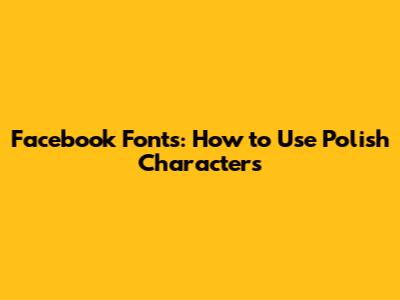
- Enable Polish Keyboard Layout: First, you need to enable the Polish keyboard layout on your computer or smartphone. On Windows, go to Settings > Time & Language > Language, and add the Polish language pack. On macOS, go to System Preferences > Keyboard > Input Sources, and add Polish. On Android and iOS, you can usually find keyboard settings in the device settings under Language & Input.
- Switch Between Keyboard Layouts: Once enabled, you can switch between your default keyboard and the Polish keyboard. On Windows, use the Windows key + Spacebar shortcut. On macOS, use Command + Spacebar. On mobile devices, you can usually switch keyboards by tapping the globe icon on the keyboard.
- Typing Polish Characters: Now, you can start typing Polish characters. The specific keys for these characters will depend on the keyboard layout you've chosen. Common layouts include Polish (Programmers) and Polish (214). Refer to a keyboard layout chart to find the correct keys for 'ą', 'ć', 'ę', 'ł', 'ń', 'ó', 'ś', 'ź', and 'ż'.
- Using Character Map (if needed): If you're having trouble finding the characters on your keyboard, you can use the Character Map on Windows or the Character Viewer on macOS. These tools allow you to find and copy special characters.
- Copy-Pasting from Text Editors: If you're writing your text in a separate text editor, make sure the encoding is set to UTF-8. This ensures that the Polish characters are preserved when you copy and paste the text into Facebook.
- Test Your Posts: After posting, double-check to ensure that all Polish characters are displayed correctly. If you notice any issues, edit the post and try retyping the characters or adjusting the encoding.
- Characters Displaying as Boxes or Question Marks: This usually indicates a font or encoding issue. Ensure your browser and device support UTF-8 encoding. Try changing the font in your browser settings or updating your browser to the latest version. If you're using the Facebook app, make sure it's updated.
- Inconsistent Font Display: Sometimes, Facebook might display different fonts depending on the device or browser. Unfortunately, there's not much you can do about this, as Facebook controls the font rendering. However, choosing a widely supported font can minimize these inconsistencies.
- Copy-Pasted Text Issues: When copy-pasting text, the encoding might not be preserved. Try typing the text directly into Facebook or using a text editor to convert the encoding to UTF-8 before pasting.
- Mobile App Problems: The Facebook mobile app can sometimes have issues with displaying Polish characters correctly. Ensure the app is updated and try clearing the cache. If the problem persists, try using the mobile browser version of Facebook.
- Keyboard Layout Issues: Make sure you've correctly enabled and switched to the Polish keyboard layout. Double-check the keyboard layout chart to ensure you're using the correct keys for Polish characters.
- Font Size and Readability: Sometimes, the font size might be too small or the font itself might be difficult to read. Adjust the font size in your browser settings or choose a different font that's easier to read.
- Consider Your Audience: Choose fonts and formatting that are appropriate for your audience. A professional audience might prefer a more formal font, while a younger audience might appreciate a more playful font.
- Test Different Fonts: Experiment with different fonts to see what works best for your content. Pay attention to how the fonts look on different devices and browsers.
- Be Consistent: Use the same fonts and formatting consistently to create a cohesive look for your Facebook page.
- Use Visual Hierarchy: Use different font sizes and styles to create a visual hierarchy and guide your readers through your content. Important information should stand out.
- Check for Readability: Always check your posts for readability before publishing. Make sure the font is easy to read and the text is well-formatted.
Navigating the world of Facebook fonts and ensuring your Polish characters display correctly can be tricky, but fear not! This guide will walk you through everything you need to know. We'll cover why font choices matter, how to use Polish characters effectively, and troubleshoot common issues. Let's dive in!
Why Font Choice Matters on Facebook
When it comes to Facebook fonts, the visual appeal of your posts, comments, and profile can significantly impact how your audience perceives your content. The right font can enhance readability, emphasize key points, and even reflect your personal or brand identity. Think of it this way: a professional-looking font can lend credibility to your posts, while a fun, quirky font might make your content more engaging and approachable. However, the default font options on Facebook are somewhat limited, which can sometimes lead to a monotonous and generic look across the platform. That's where understanding how to use and sometimes work around these limitations becomes essential.